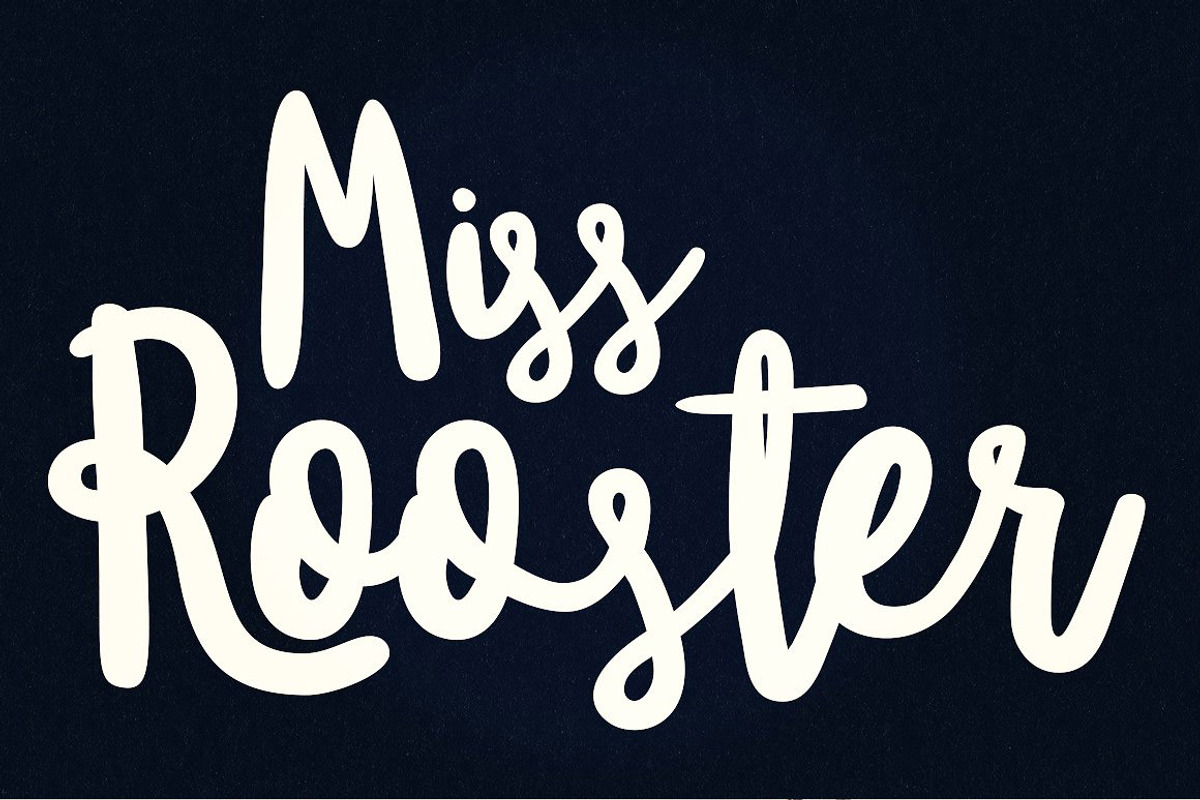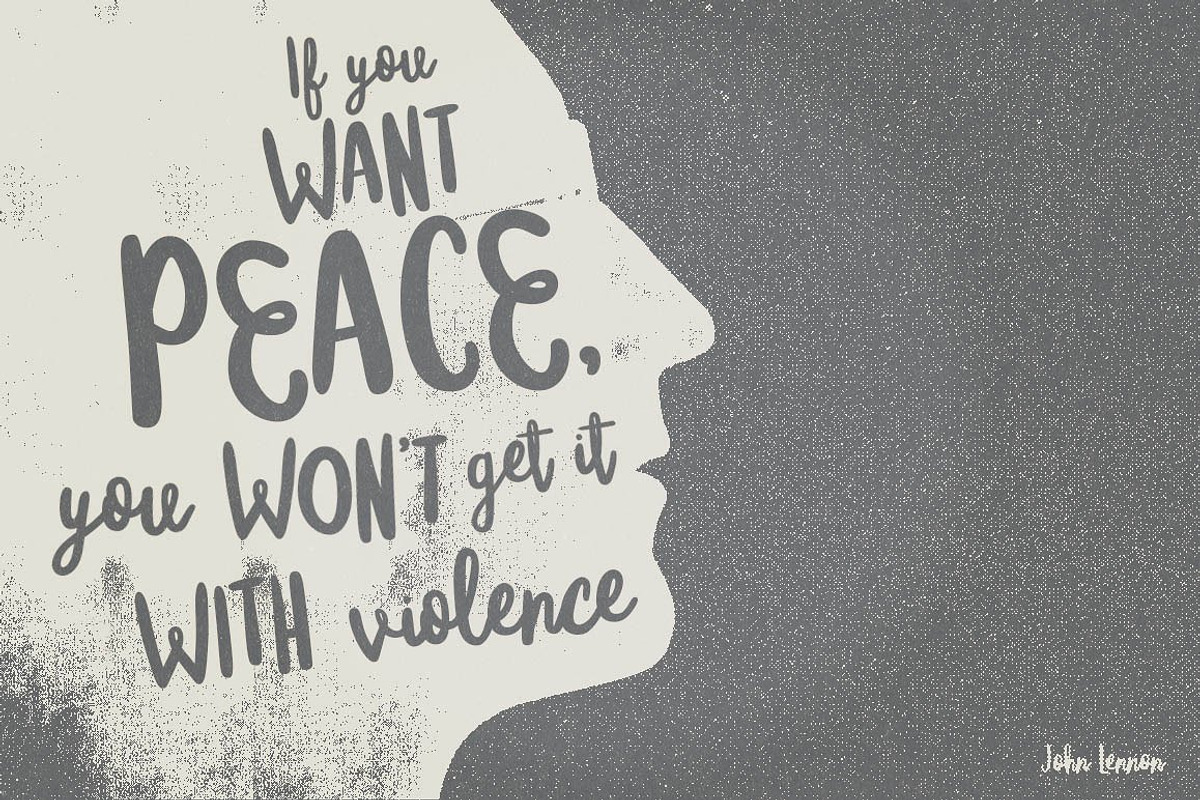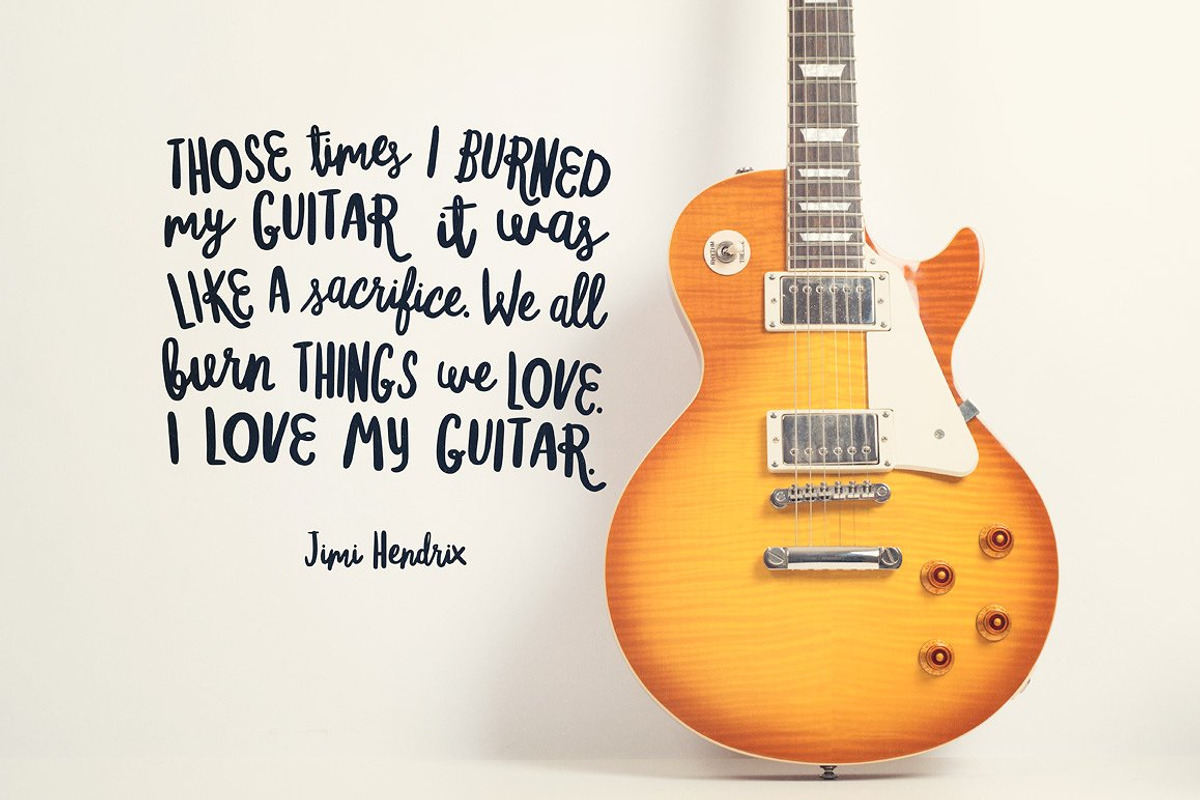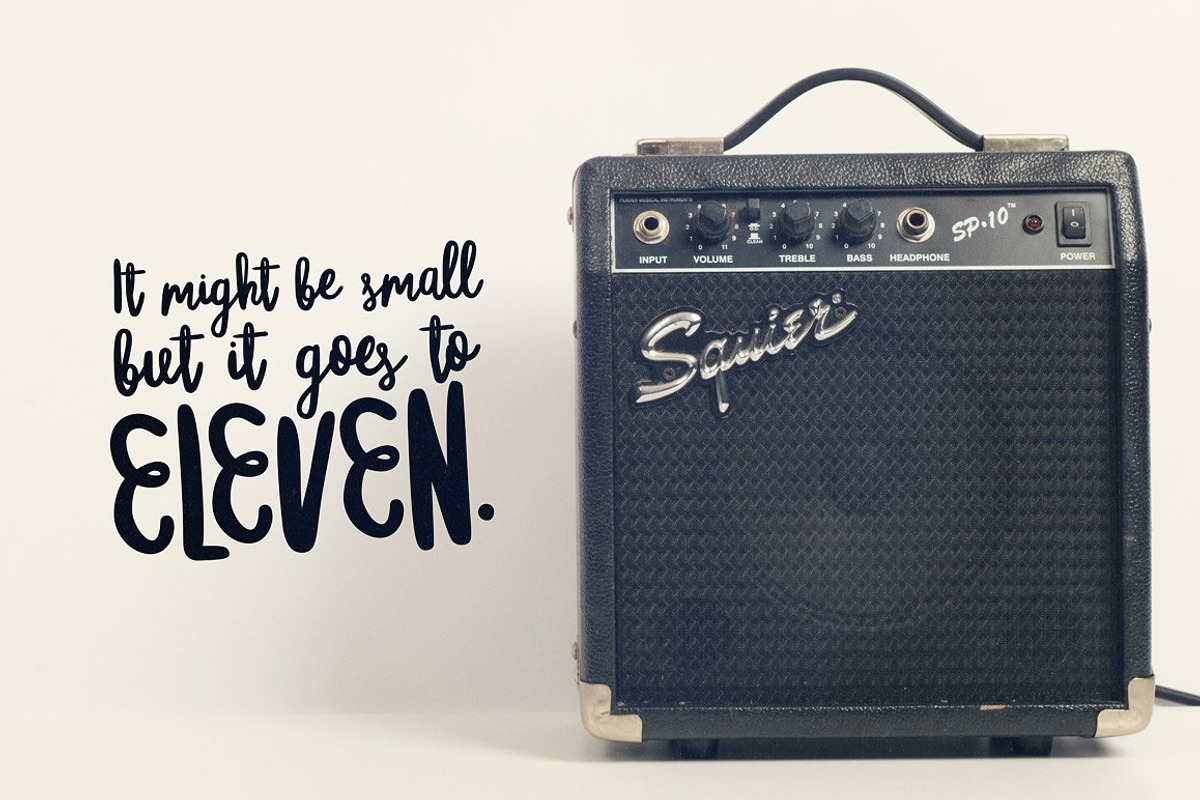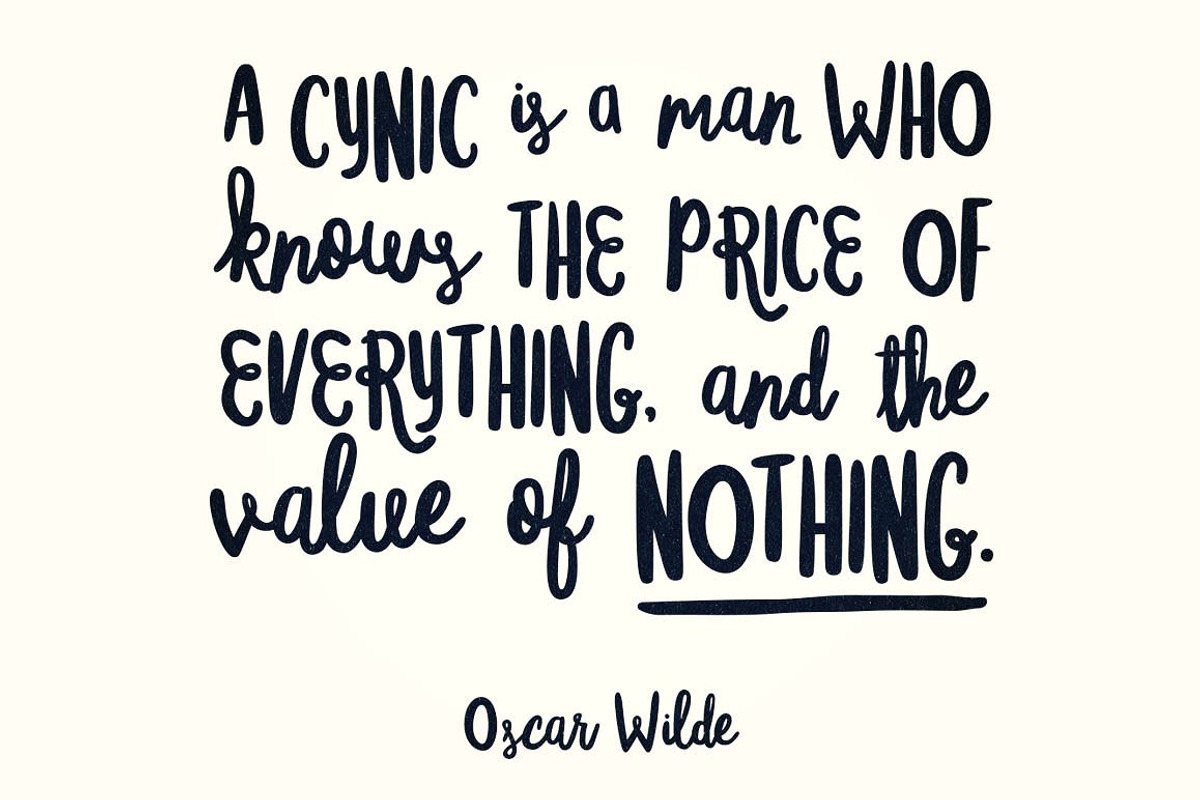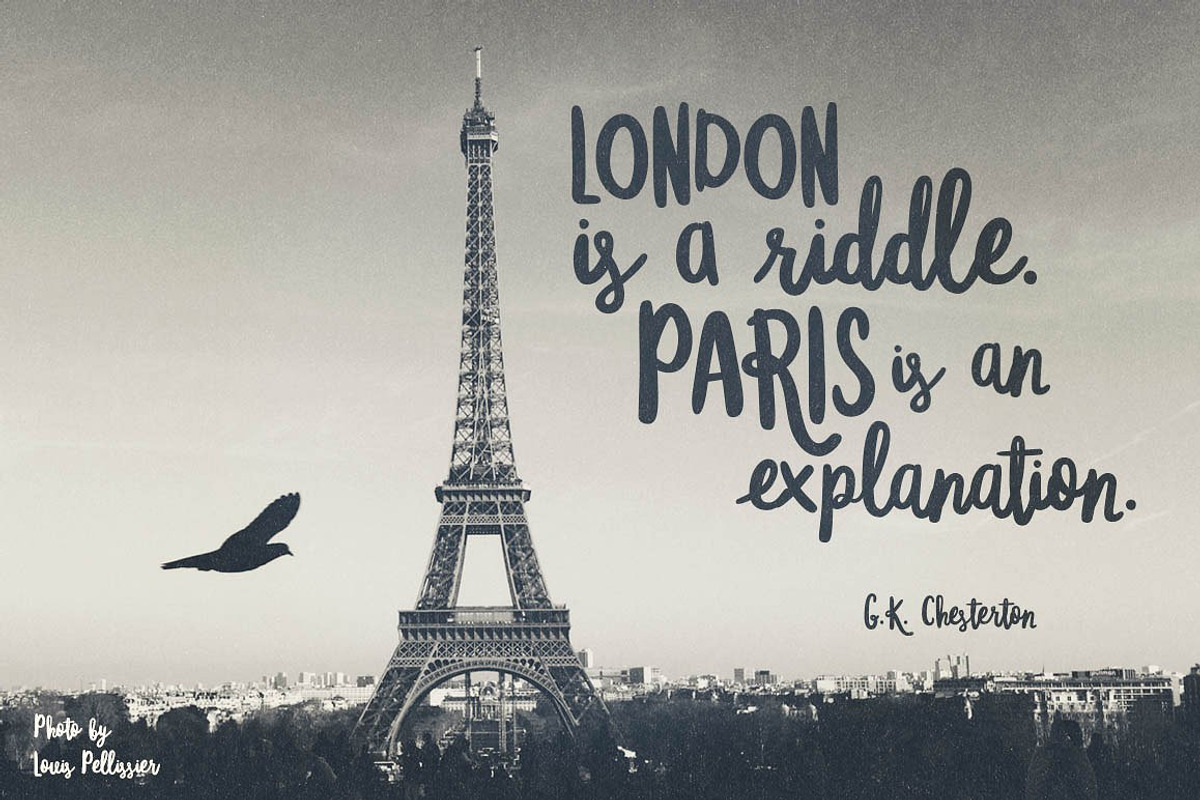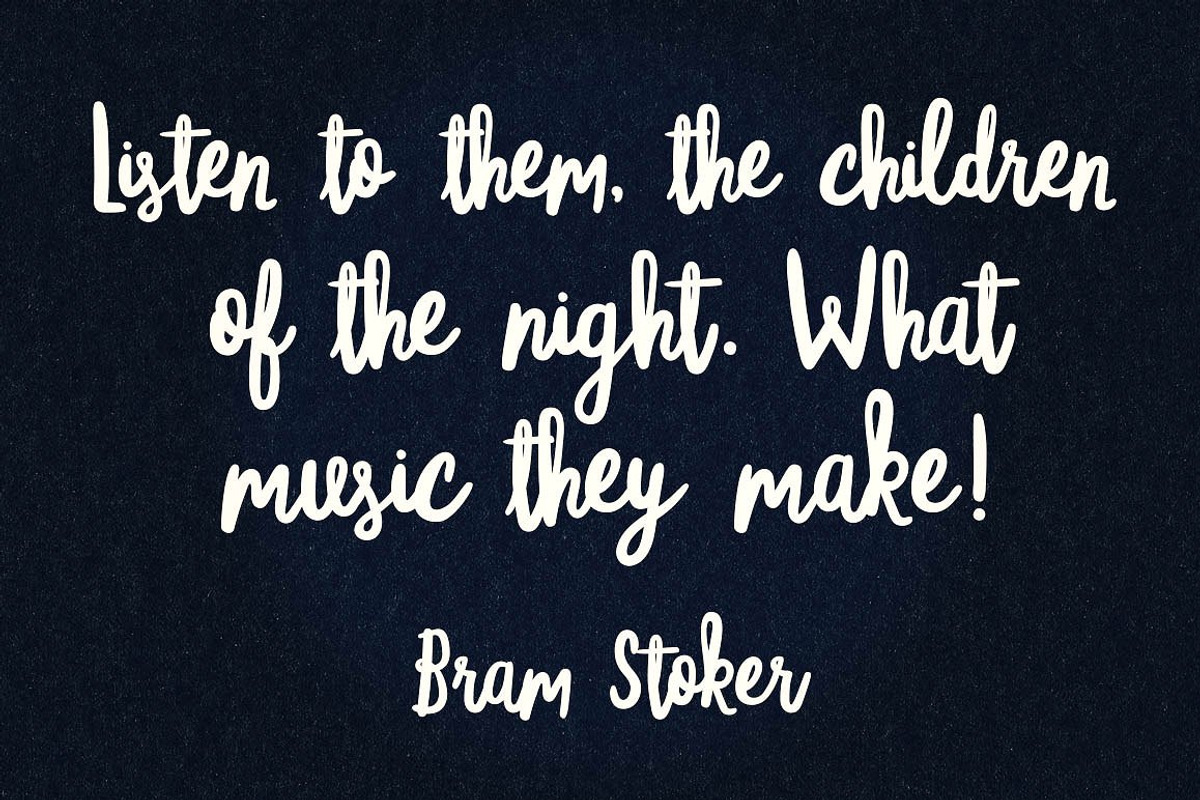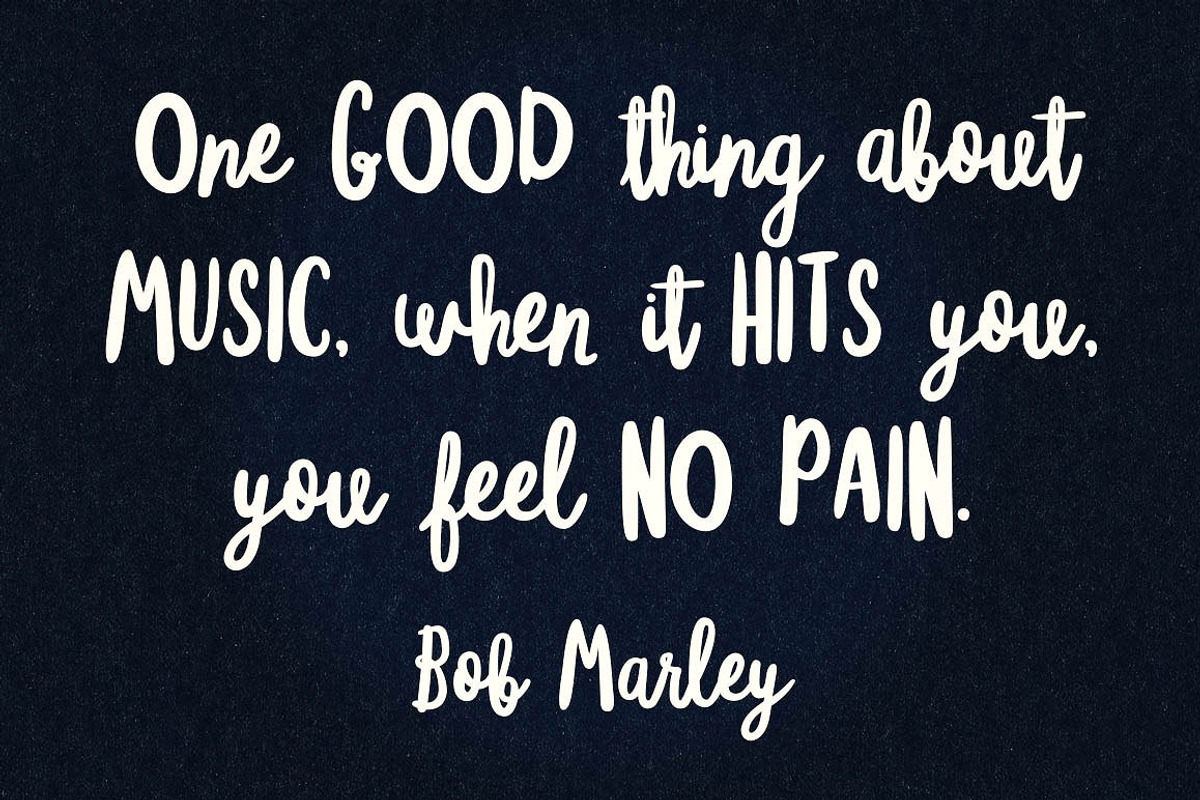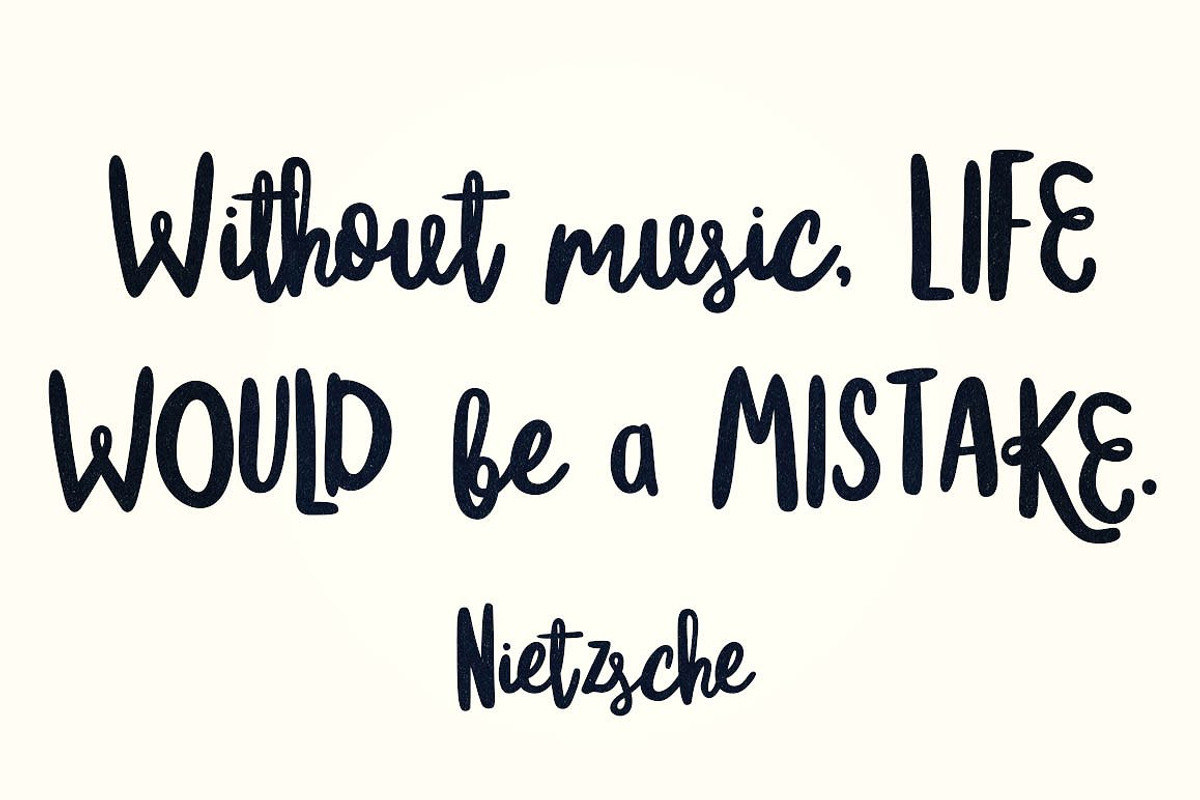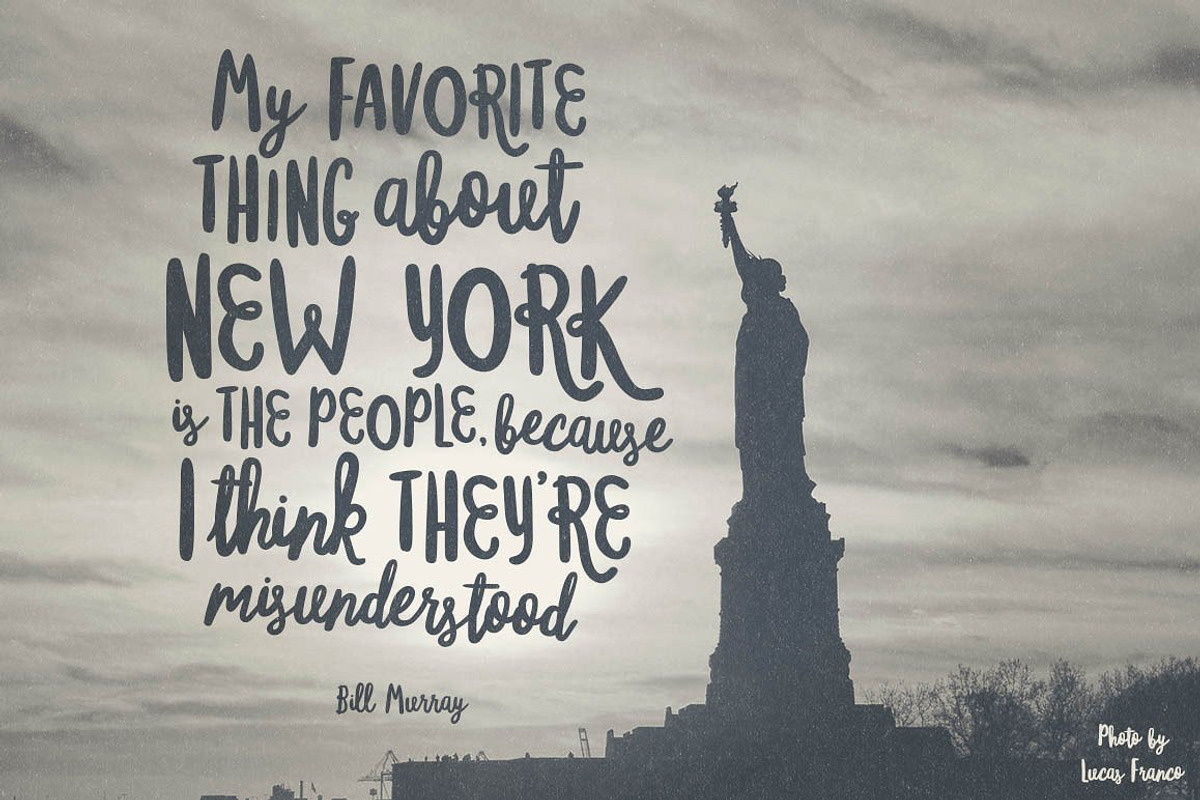
Script font Miss Rooster cursive
Script font Miss Rooster (formally Mister Rooster) was created using my graphics tablet in illustrator. It's a proper cursive script font, so it looks like real handwriting.
Script font Miss Rooster doesn't have the complexity of a real hand drawn pen and ink but retains the hand-drawn calligraphy look and feel. It has much simpler paths so should be super quick and easy to work with.
It looks a bit quirky as the letters are playing along the baseline. Some characters are just plain ignoring it altogether. Capital letters don't line up as you would expect; some are taller, and some are fatter. I think that just adds to its appeal.
The uppercase letters look good just by themselves. I like to use all caps combined with sentence case to get that real quirky, playful feeling.
Script font usage
Despite my dark mockups, the Script font Miss Rooster has a playful mood to it, which is perfect for projects that require the personal handmade look like wedding invites, posters and packaging but it will look fine with lots of different design styles.
The font has a ton of ligatures to make the letters join correctly plus a few initial and terminal forms. Using OpenType features in your design application of choice you can turn them on and off to suit your needs.